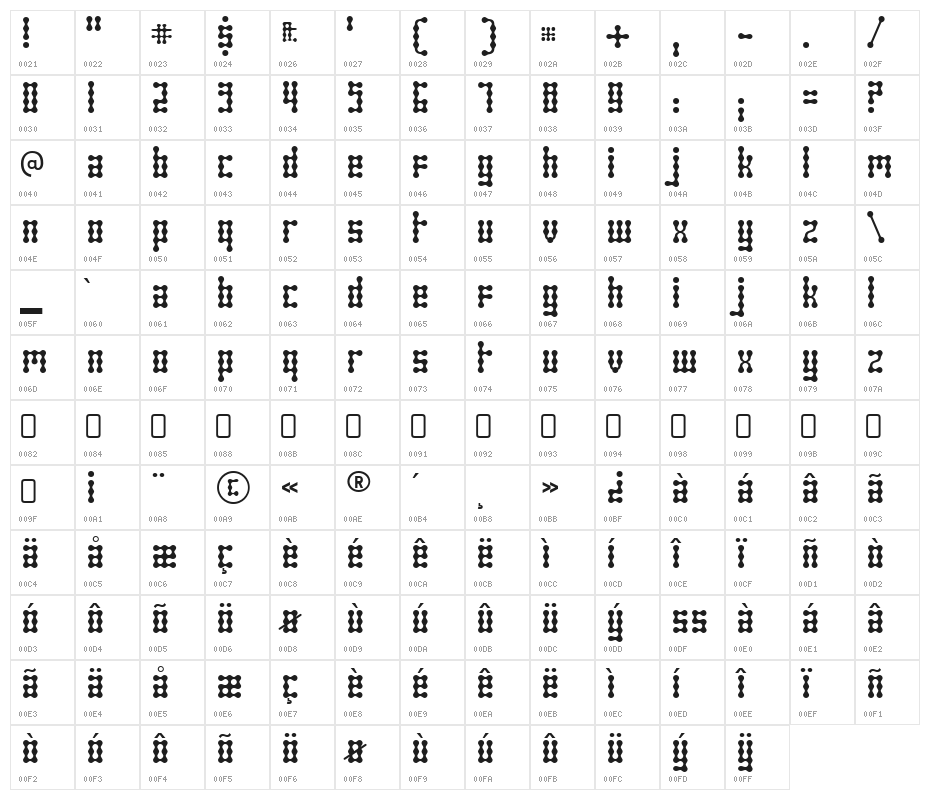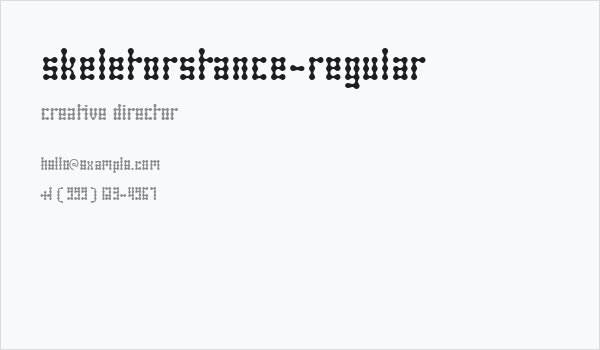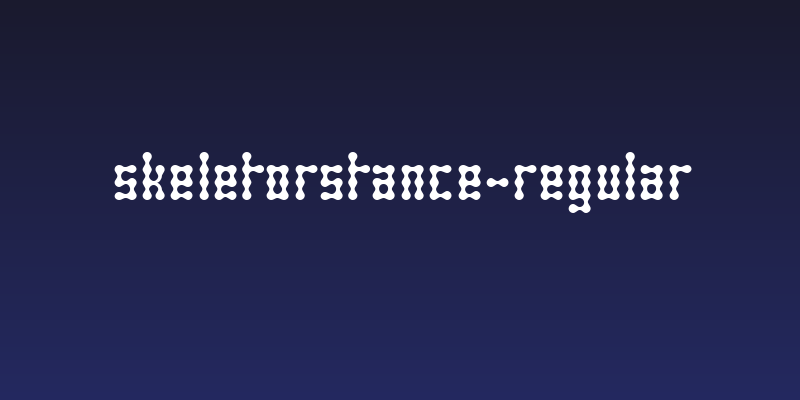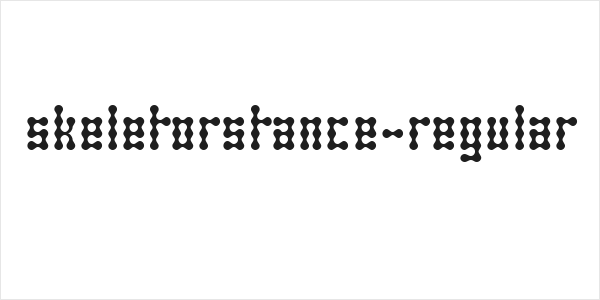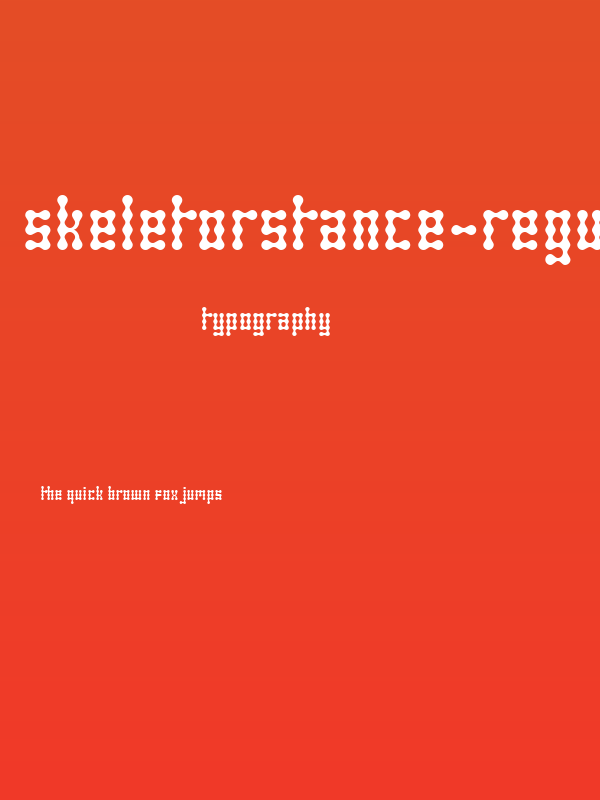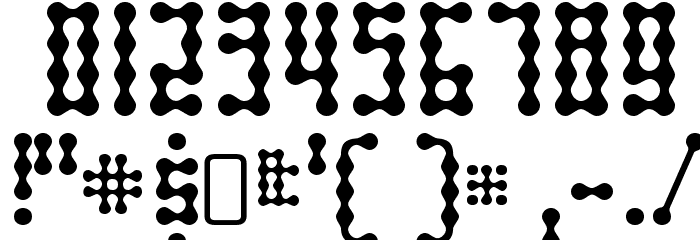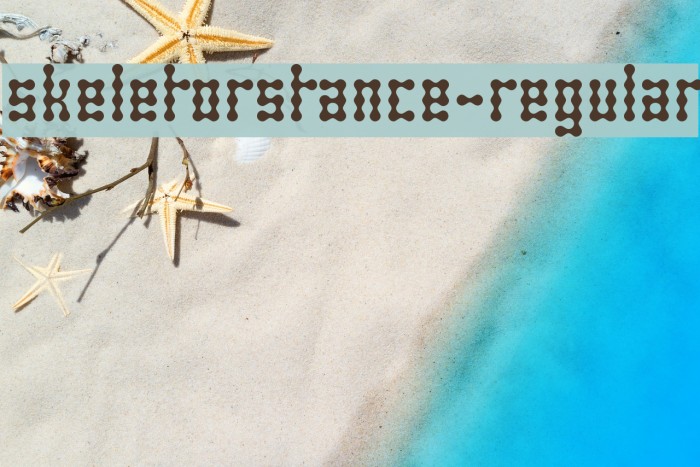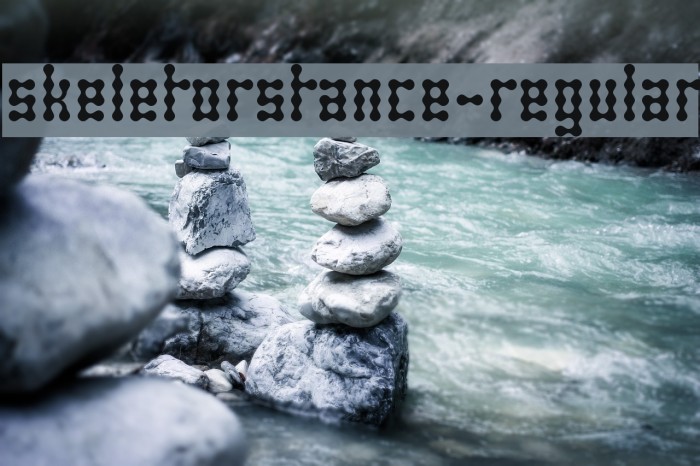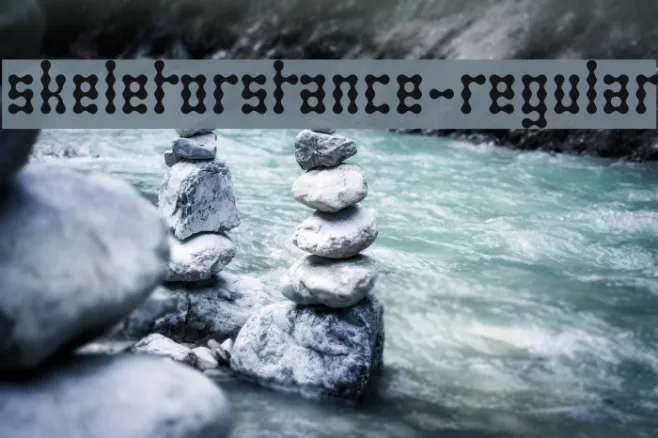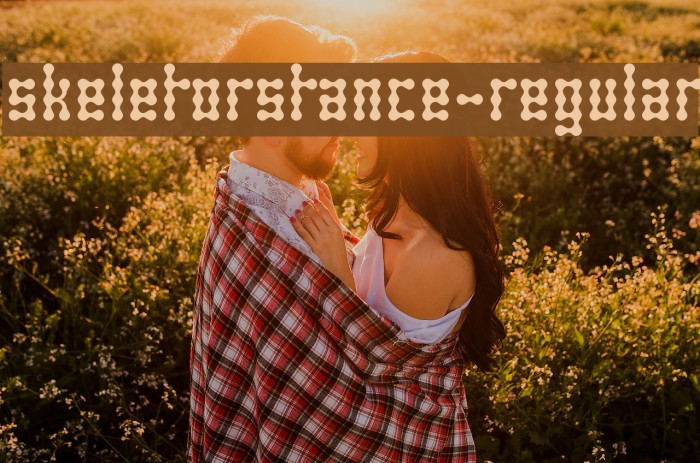
SkeletorStance-Regular Font
SkeletorStance-Regular Description
This font features a unique and playful design with rounded, bubble-like forms that create a whimsical and eye-catching appearance. The characters are bold and have a consistent thickness throughout, giving them a strong presence on the page. The rounded edges and interconnected shapes contribute to a sense of movement and fluidity, making it ideal for creative and informal projects. The font maintains a uniform width and spacing, ensuring readability while still offering a distinctive style. Its playful nature makes it suitable for designs that aim to capture attention and convey a sense of fun and creativity.
| Proposed Projects | Ideal for children's books, playful branding, creative posters, and party invitations. |